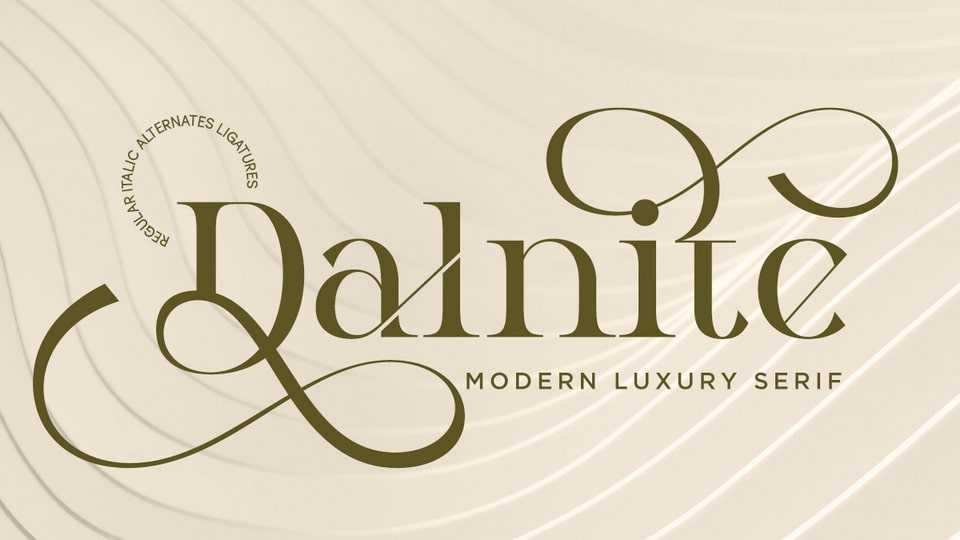
Download Dalnite font, a modern luxury serif that exudes timeless sophistication and editorial charm with elegant ligatures, refined alternates, and balanced contrasts.